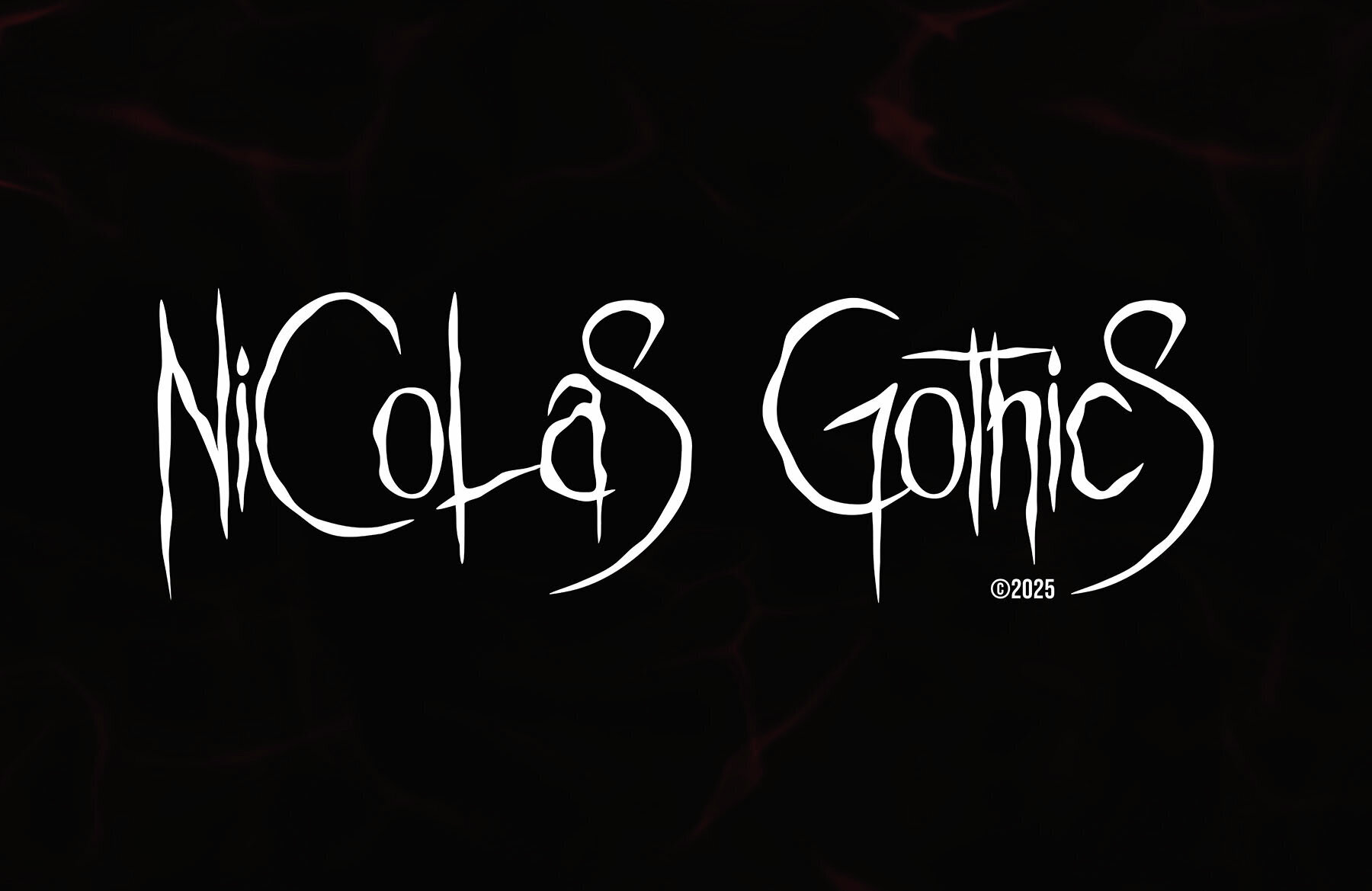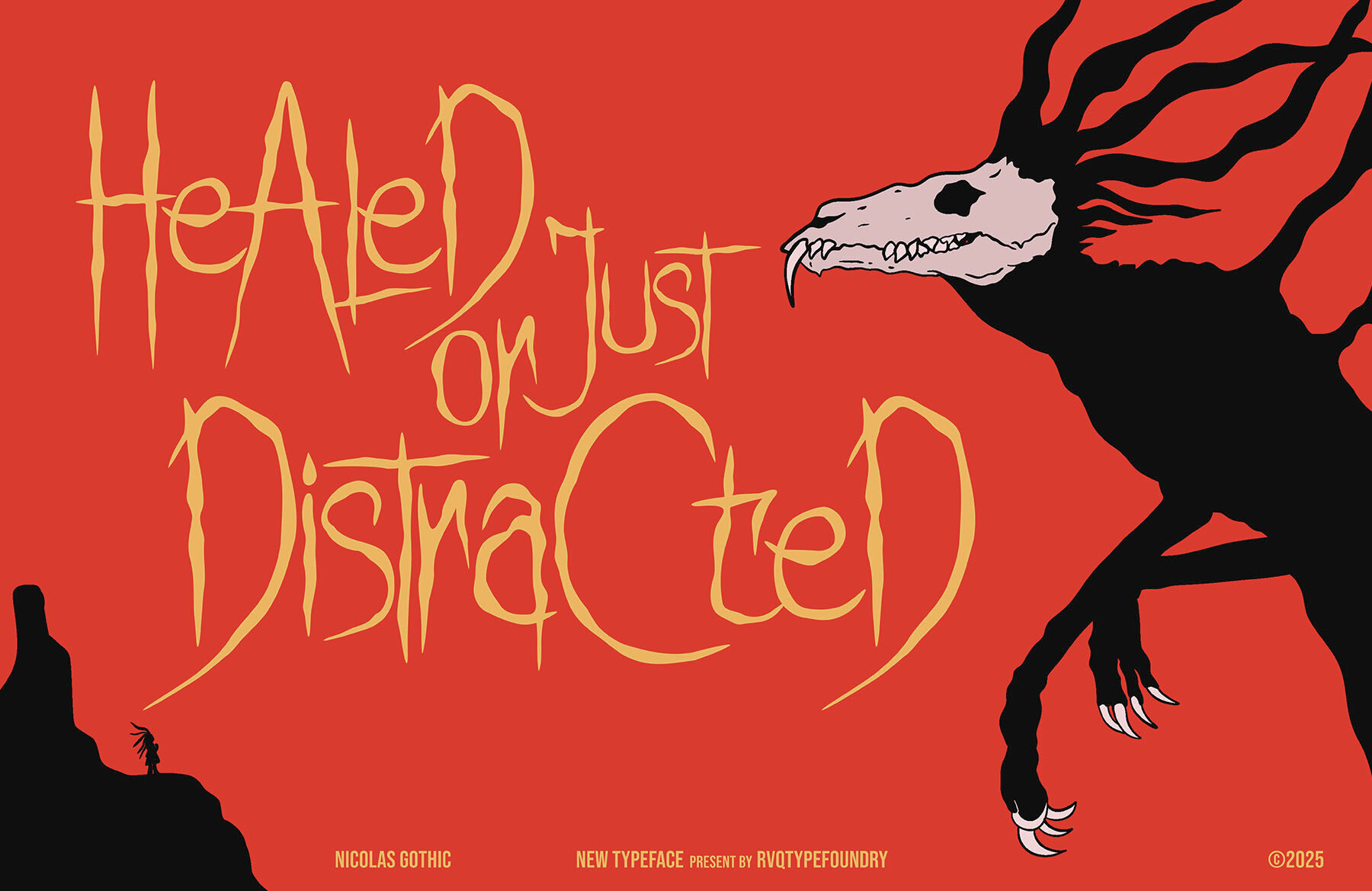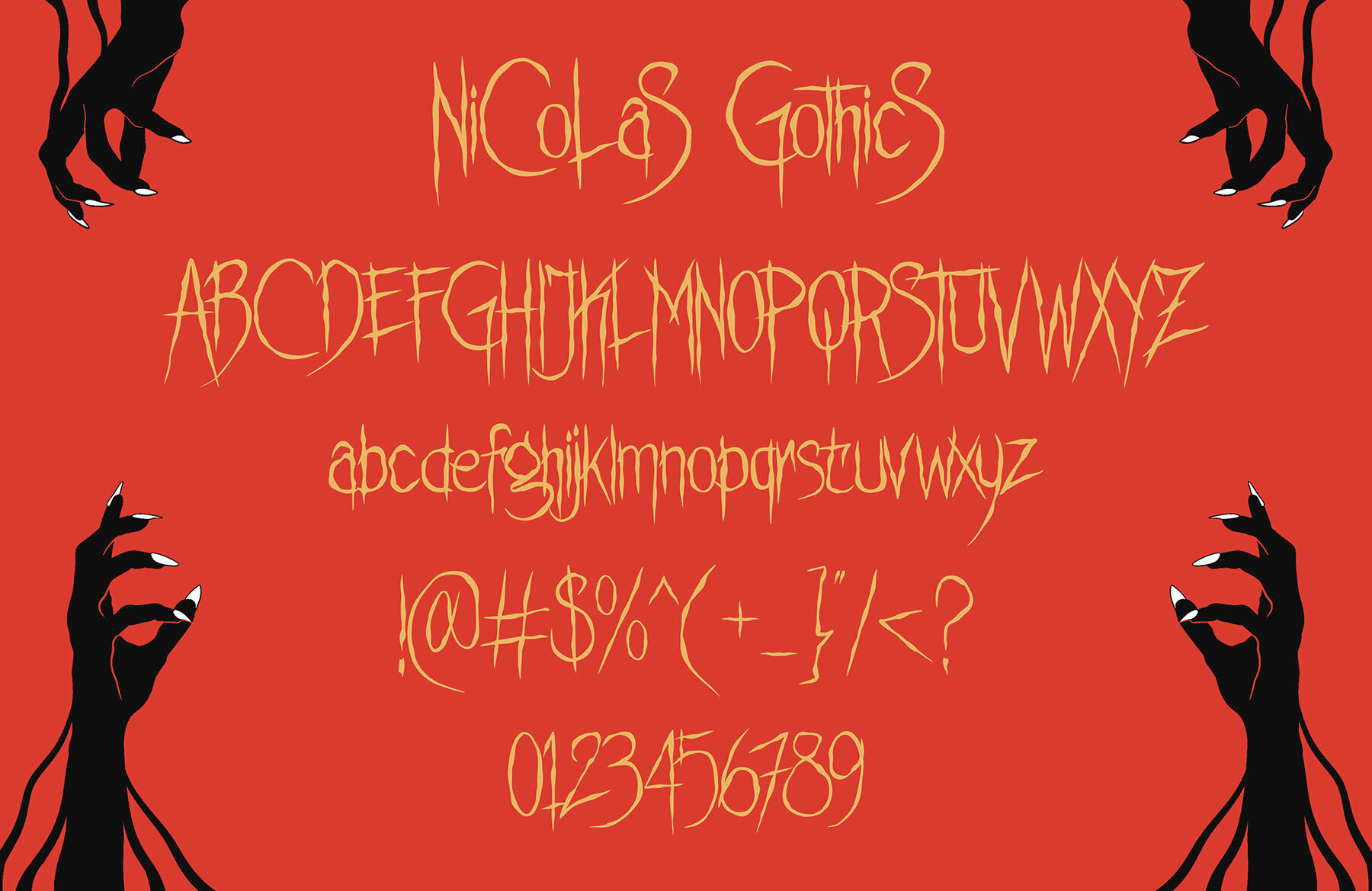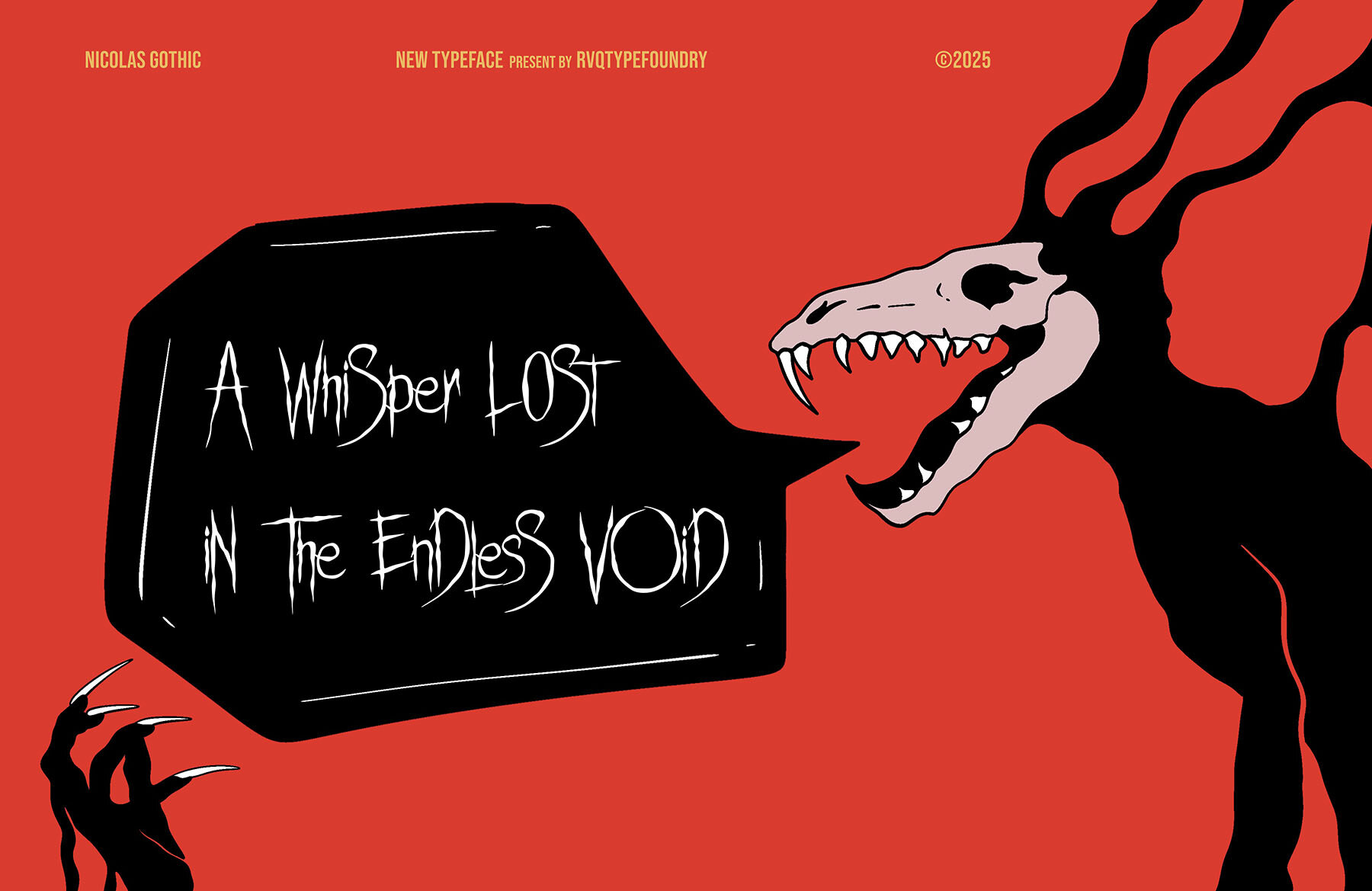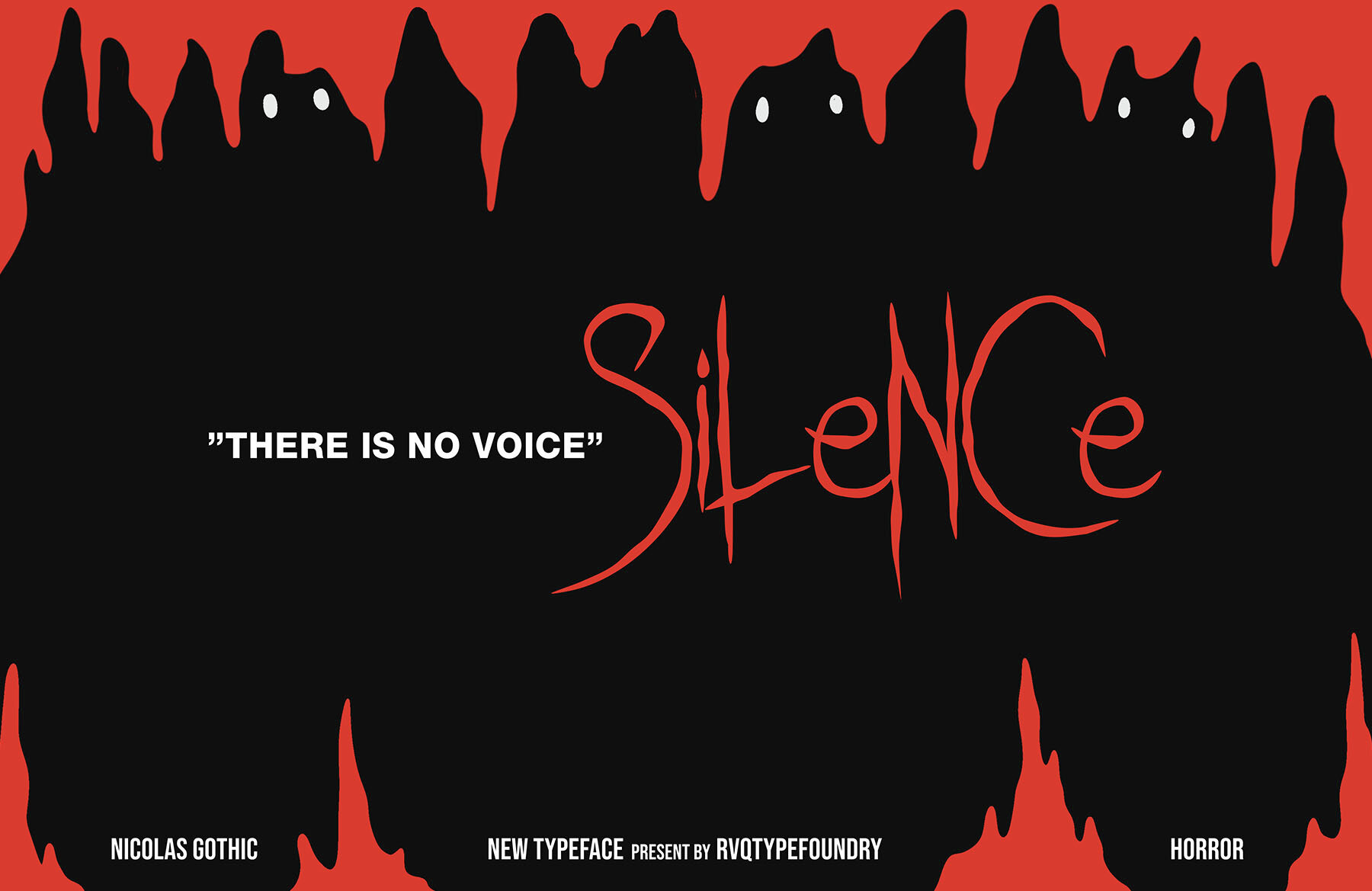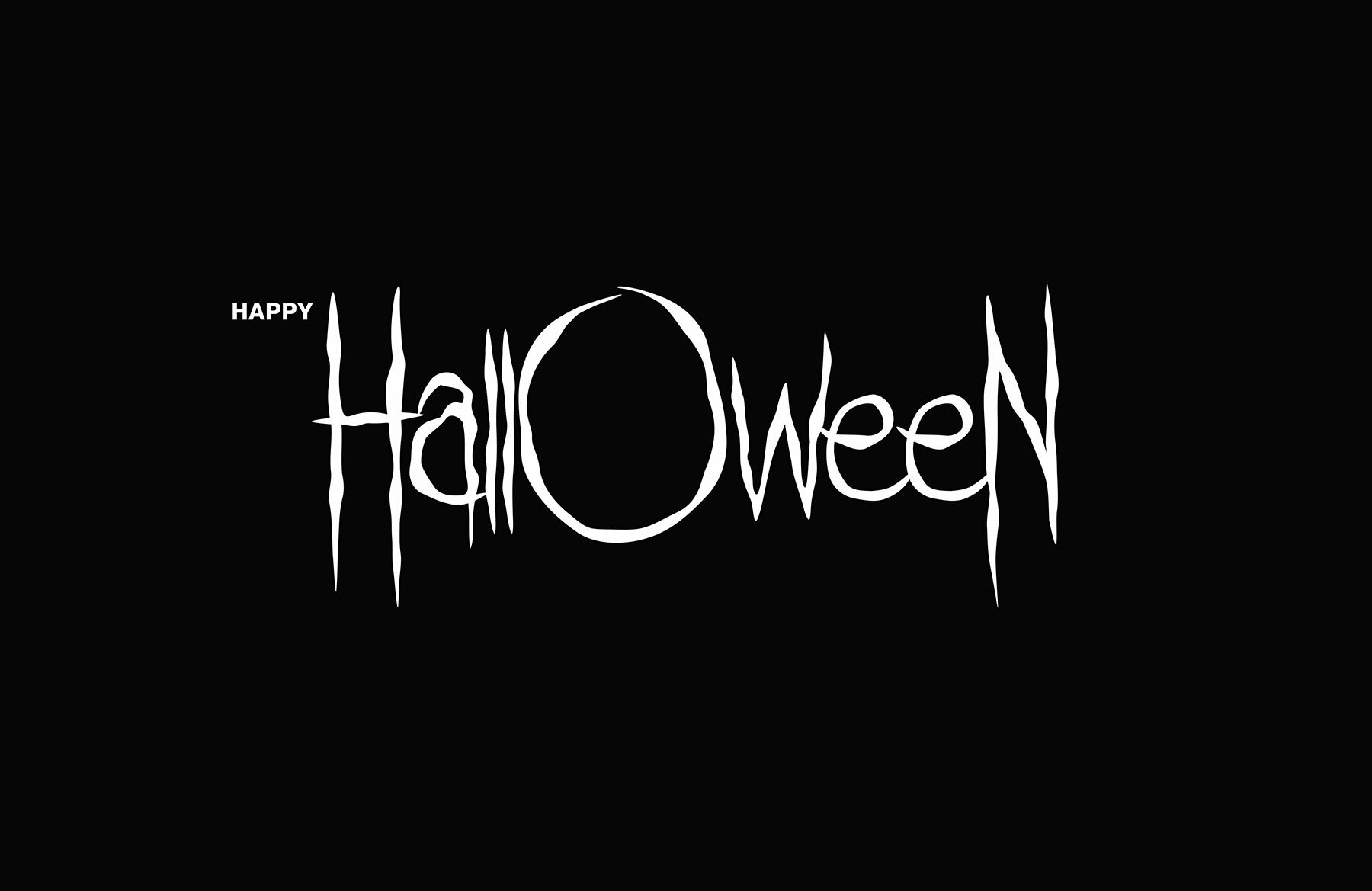
Nicolas Gothics Font
Nicolas Gothics Regular
Introducing Nicolas Gothics, a distinct typeface that seamlessly blends horror elements into its design. Inspired by childhood nightmares, this font creatively combines uppercase and lowercase letters with stylistic alternates. It's an ideal choice for enhancing storybooks, films, band names, apparel, games, and posters with a touch of the macabre.Nicolas Gothics Typeface: A Touch of Horror